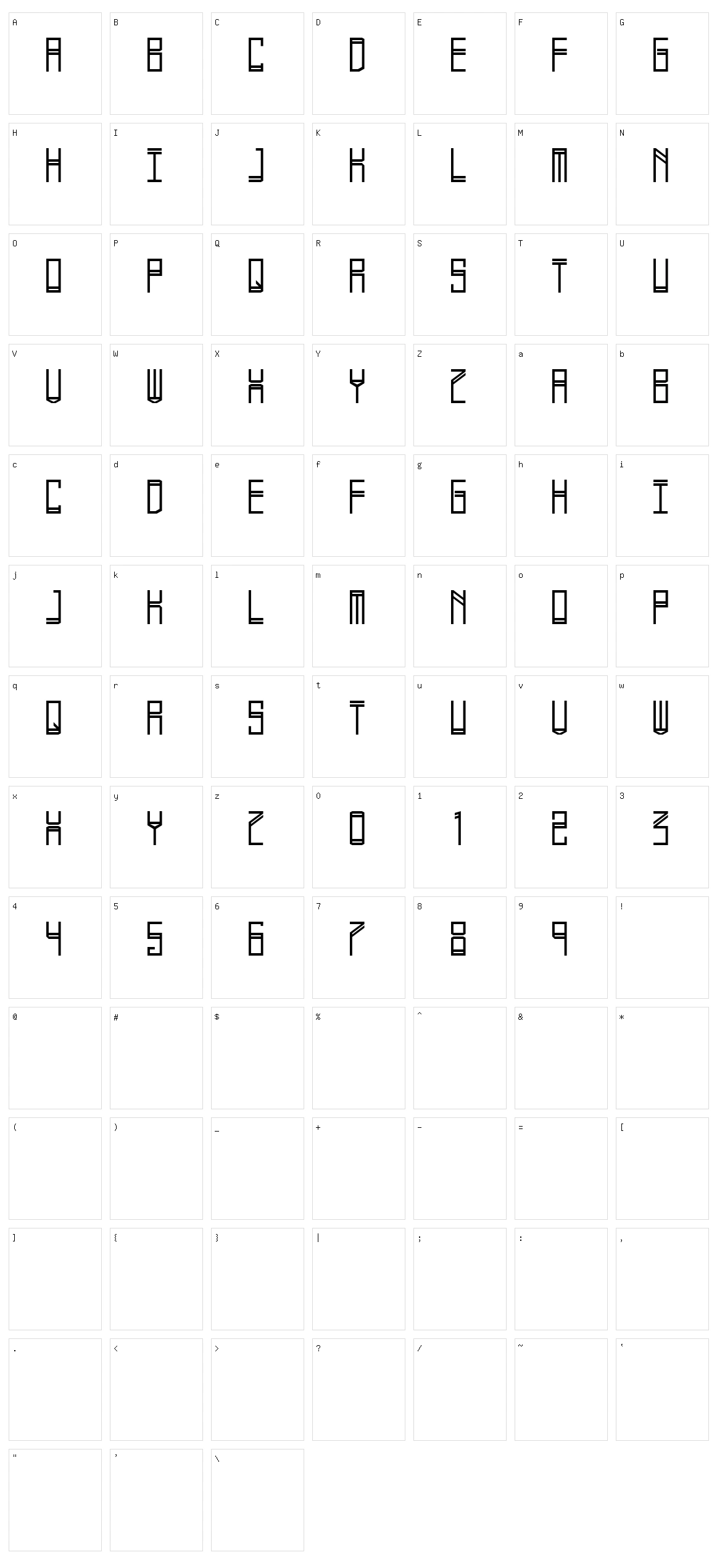
Experimental type with straight glyph (.ttf format). Uppercase & Numbers. You may use this font for personal and/or commercial use. You are not allowed to resale or redistribute this font without my permission. Contact me @ jphenom@live.com